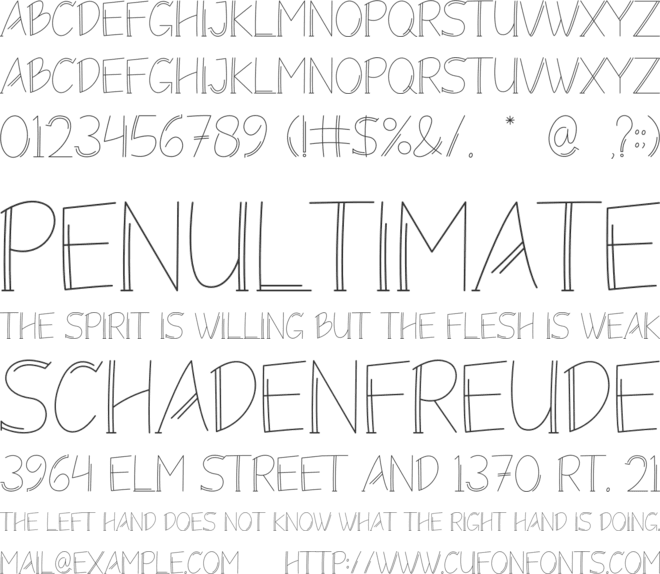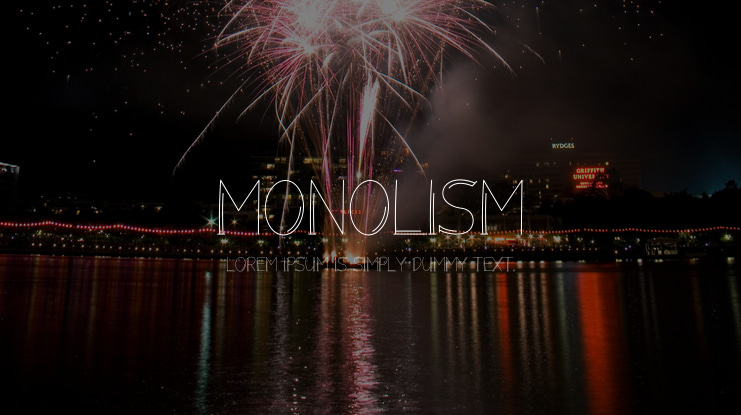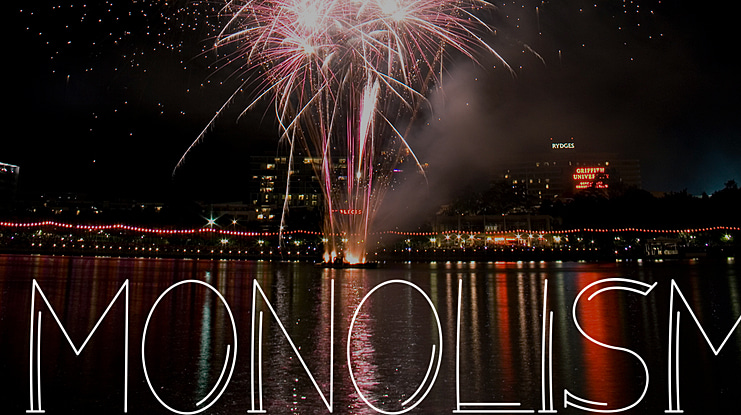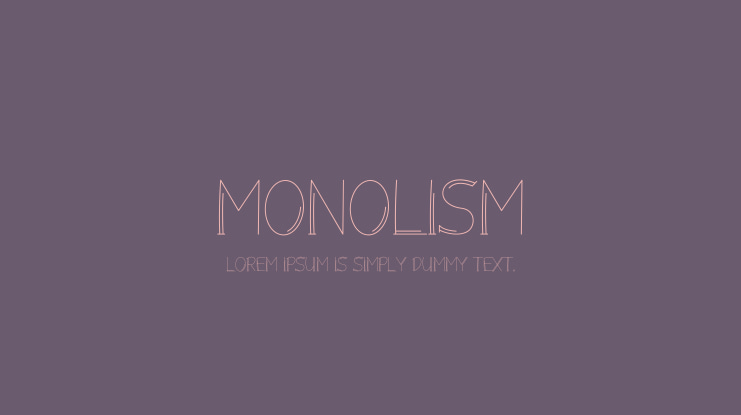
Monolism Font Family
Introducing Monolism A Thin All Caps Font Family
This font is perfect for professional branding, quotes, cards, invitation, product design, labels, logos, apparel design and much more!